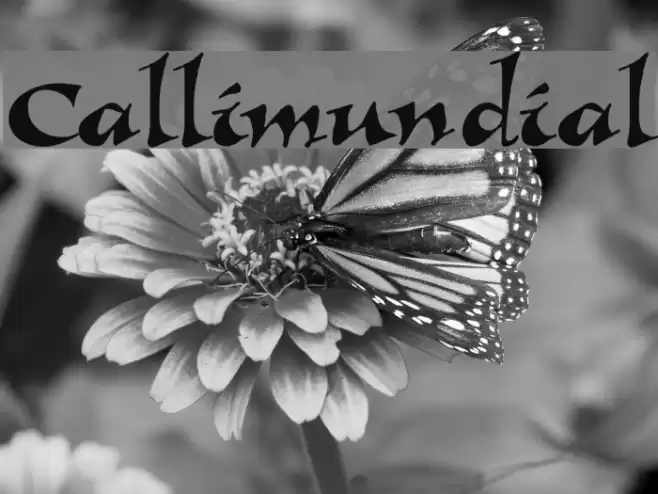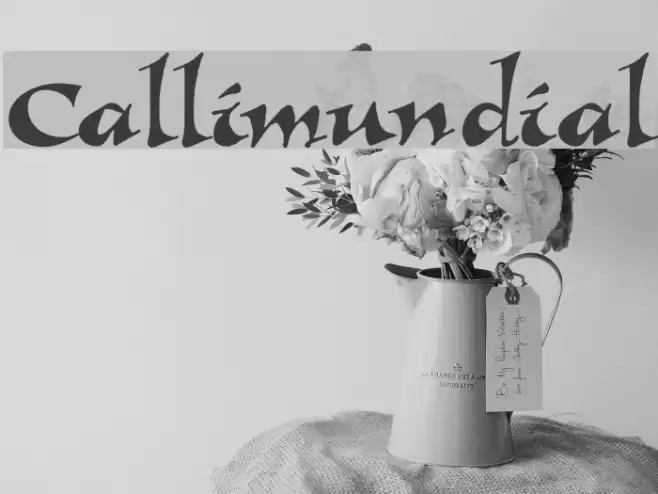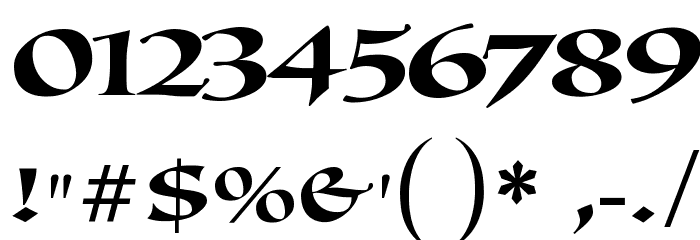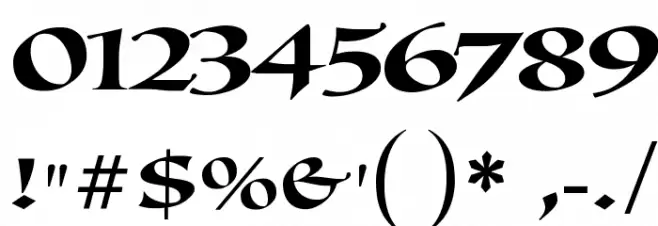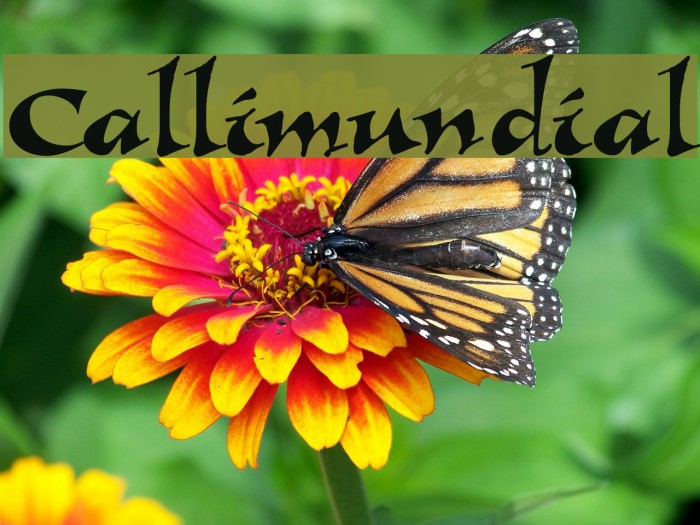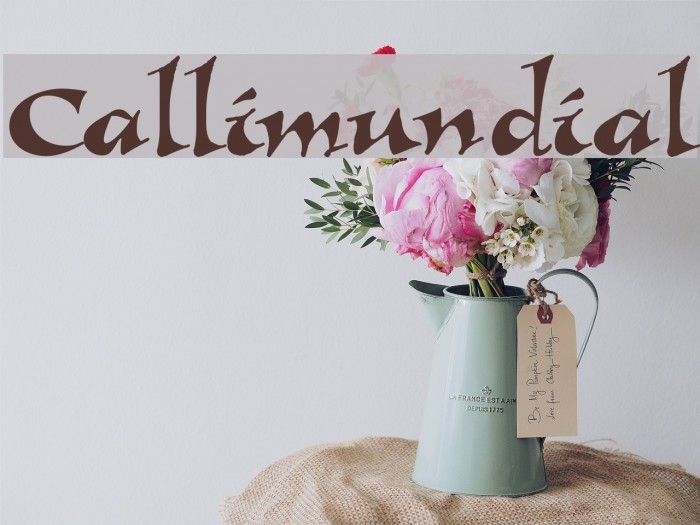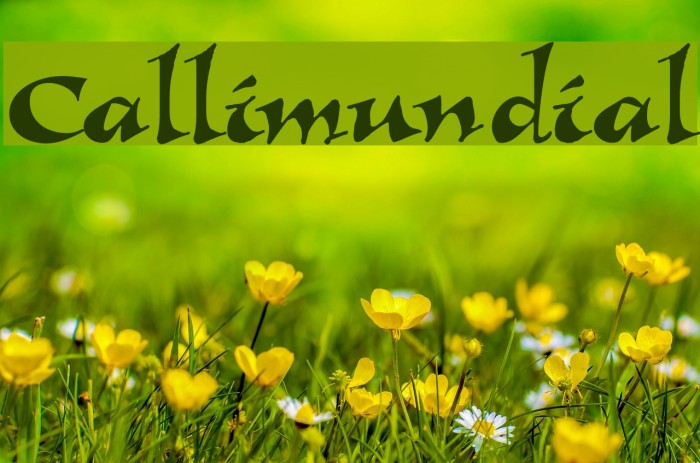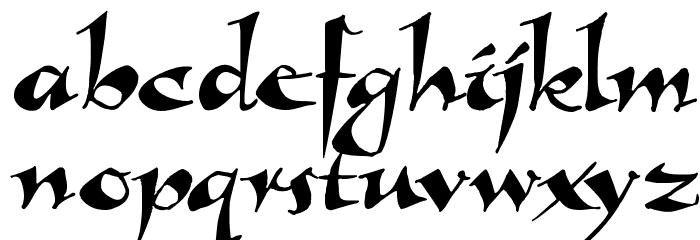
Callimundial Font
Callimundial Description
This font features a dynamic and expressive style, characterized by its sharp, angular strokes and high contrast between thick and thin lines. The uppercase letters exhibit a bold presence with a slight slant, adding a sense of movement and energy. The lowercase letters maintain a consistent flow, with unique flourishes that enhance its calligraphic appeal. Numbers and special characters are crafted with the same attention to detail, ensuring a cohesive look across all elements. The overall design is reminiscent of traditional calligraphy, yet it maintains a modern edge, making it suitable for a variety of creative applications.
A dynamic, calligraphic font with sharp, angular strokes and high contrast from Uncategorized fonts.
- Proposed Projects: Ideal for branding, invitations, posters, and any project requiring a touch of elegance and flair.
- Use Case: Logos, Headlines, Invitations